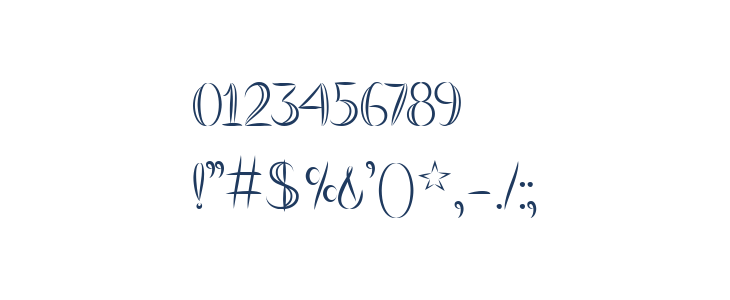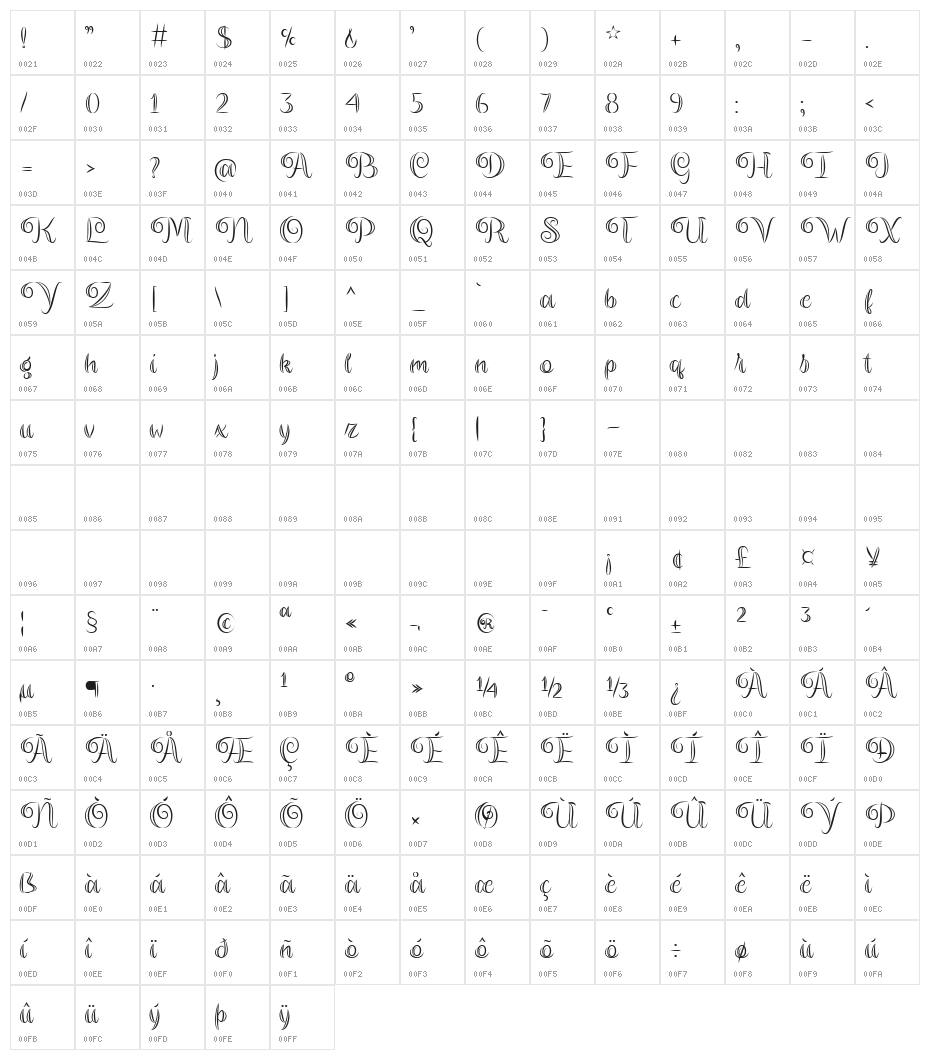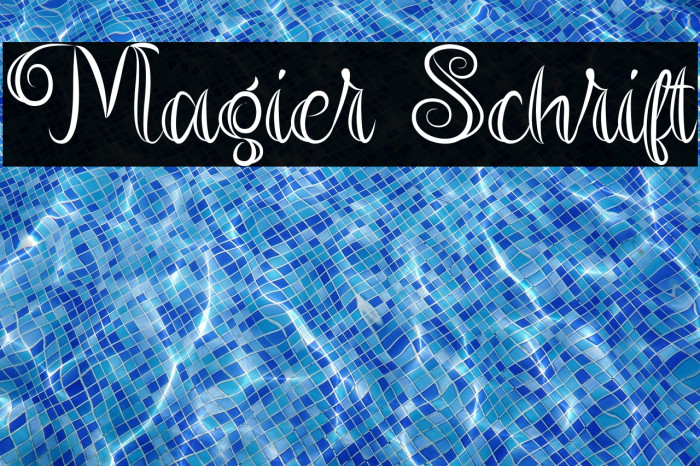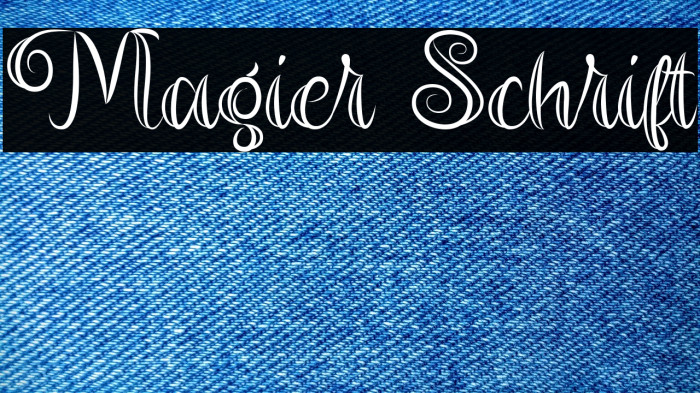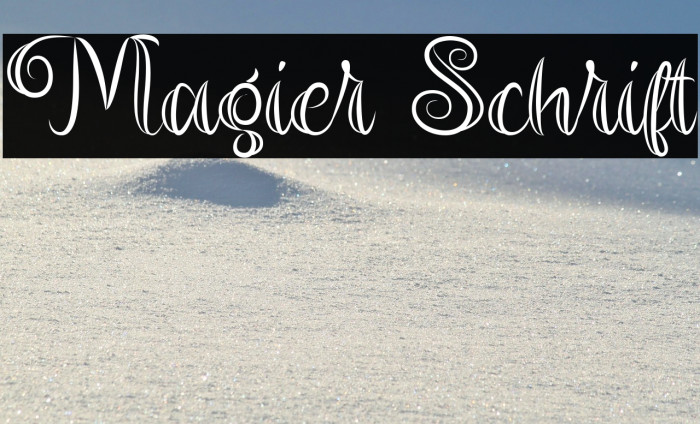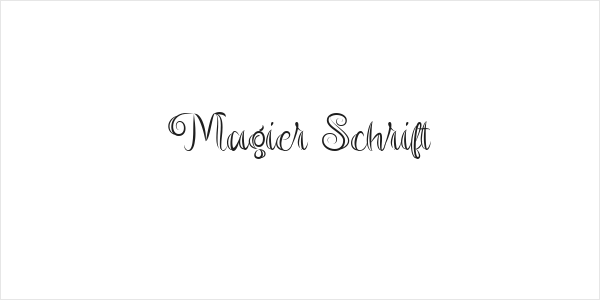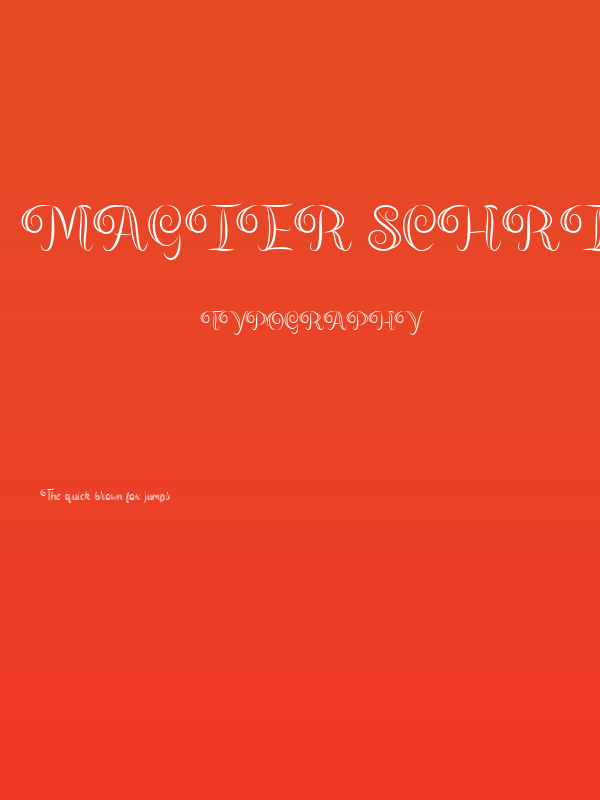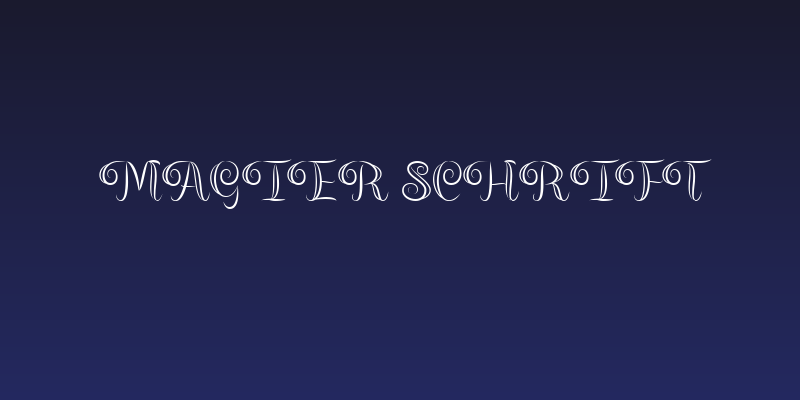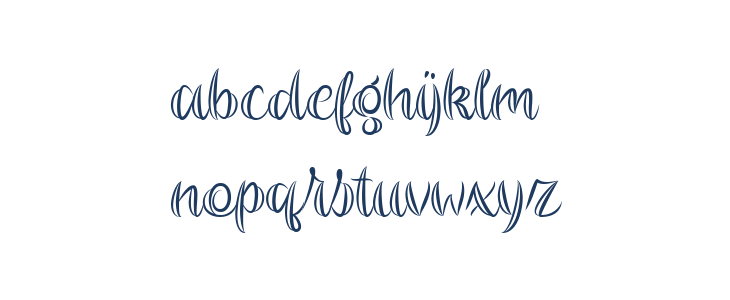
Magier Schrift Font
Magier Schrift Description
This font features an elegant and whimsical design, characterized by its flowing, cursive-like strokes and decorative flourishes. Each letter is crafted with a unique blend of curves and lines, giving it a magical and enchanting appearance. The uppercase letters are particularly ornate, with intricate loops and swirls that add a touch of sophistication. The lowercase letters maintain a consistent style, with smooth, flowing lines that create a harmonious balance. The numerals and special characters are designed to complement the overall aesthetic, featuring similar decorative elements. This font is perfect for projects that require a touch of elegance and fantasy.
| Use Case | Logos, Invitations, Decorative Text |
| Proposed Projects | Ideal for wedding invitations, fantasy book covers, branding for luxury products, and decorative posters. |